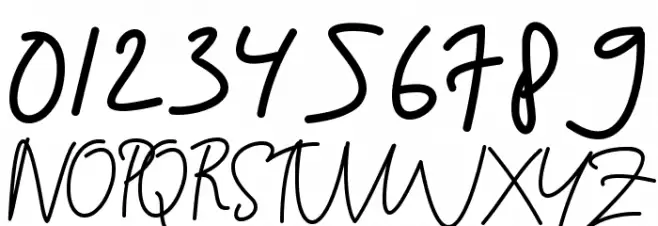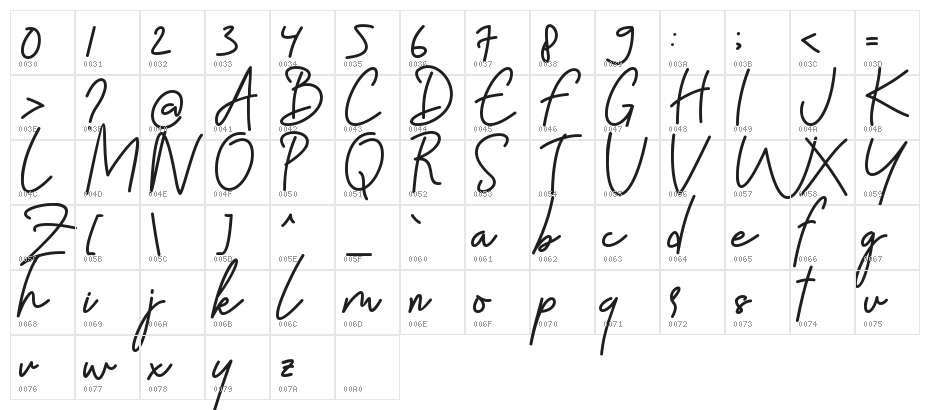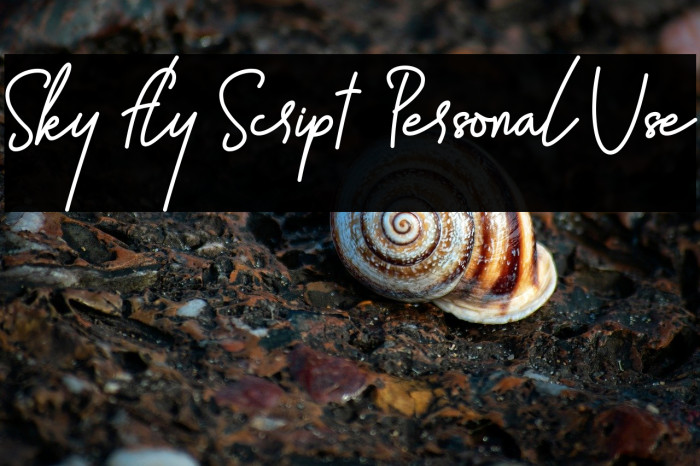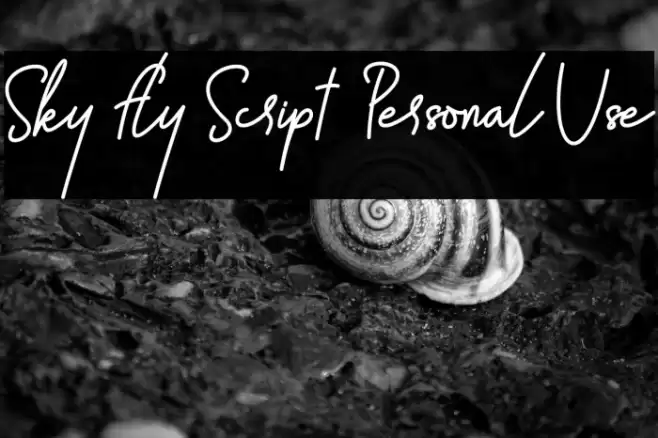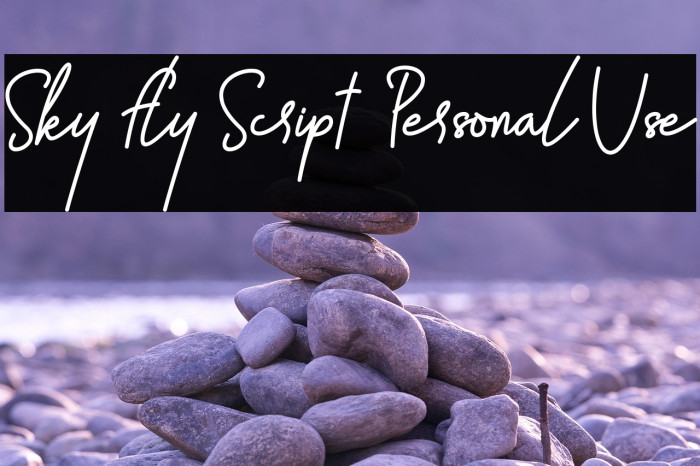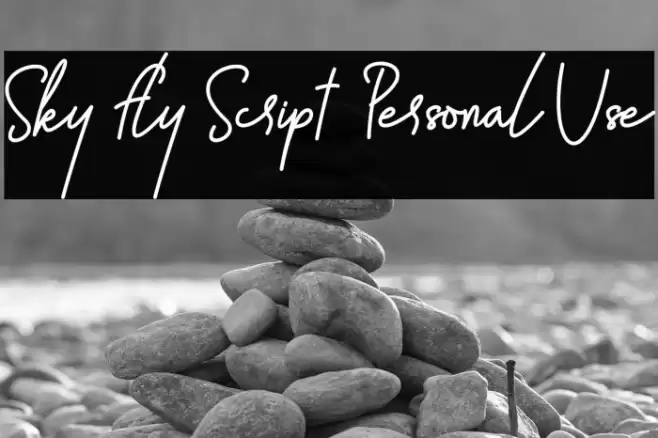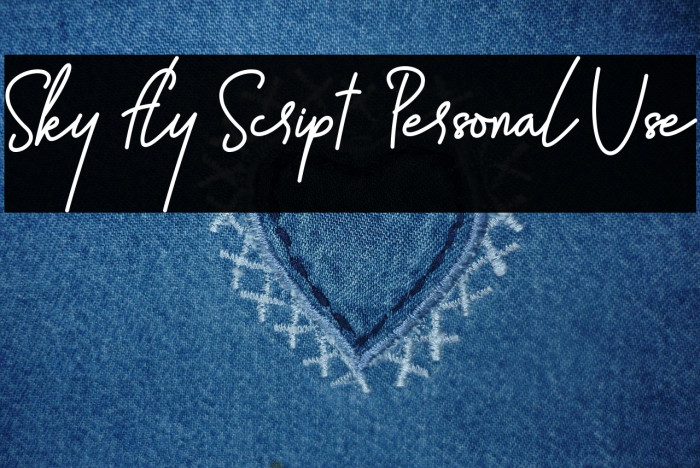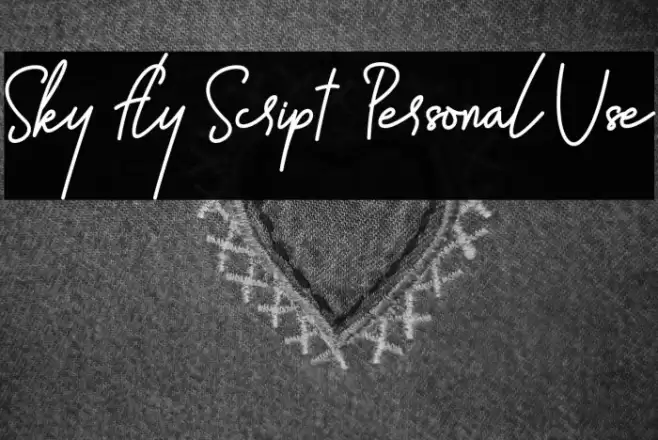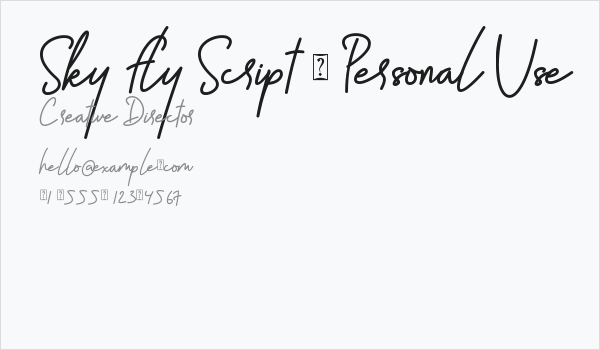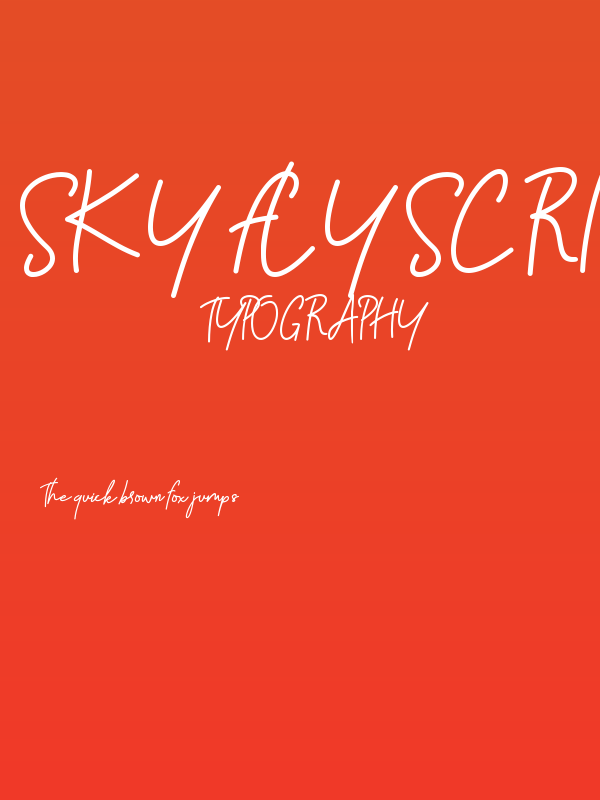
Sky Fly Script - Personal Use Font
Sky Fly Script - Personal Use Description
This font features a fluid, cursive style that mimics natural handwriting with a modern twist. The letters are connected, creating a seamless flow that is both elegant and casual. The uppercase letters maintain a consistent height, while the lowercase letters vary slightly, adding to the handwritten feel. The numbers are clear and legible, matching the overall style of the alphabet. The special characters are designed to integrate smoothly with the rest of the font, maintaining the same fluidity and style. This font is perfect for projects that require a personal touch, such as invitations, greeting cards, or branding materials.
| Proposed Projects | Ideal for invitations, greeting cards, personal branding, and creative projects. |